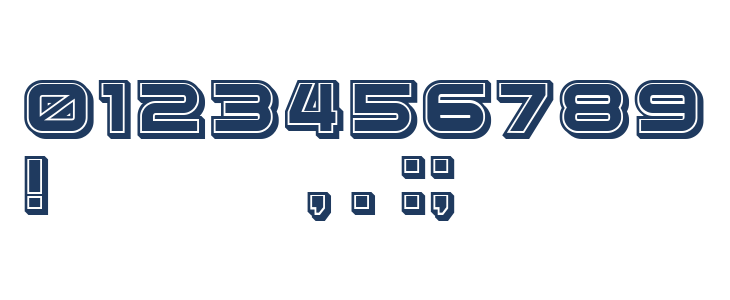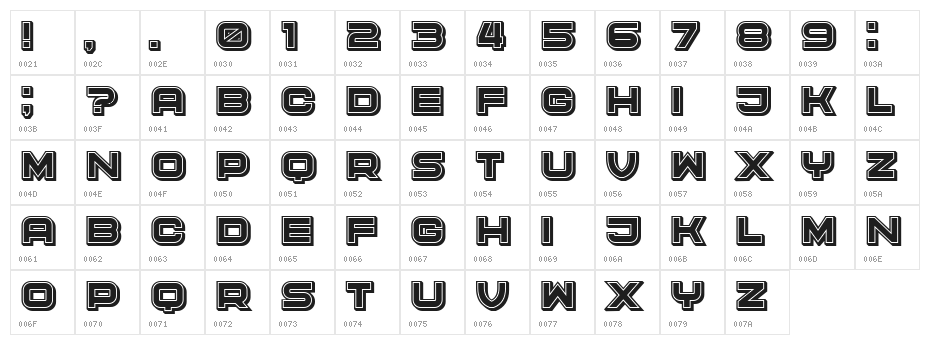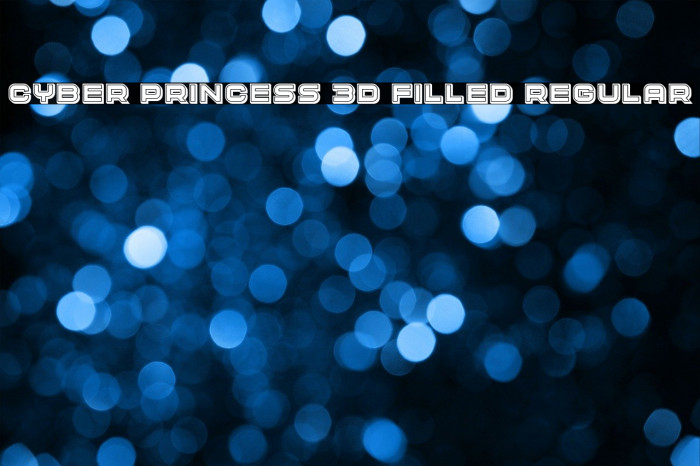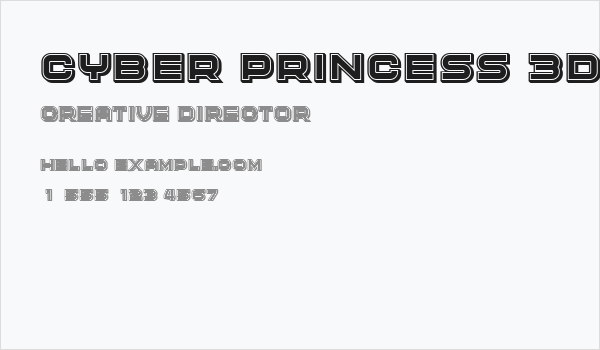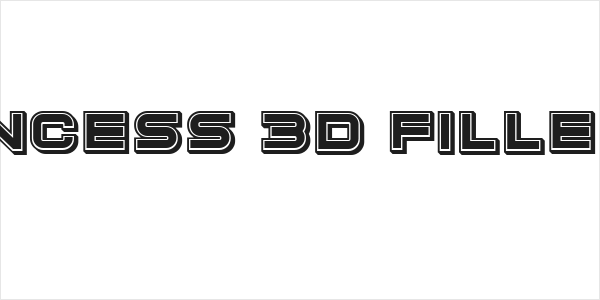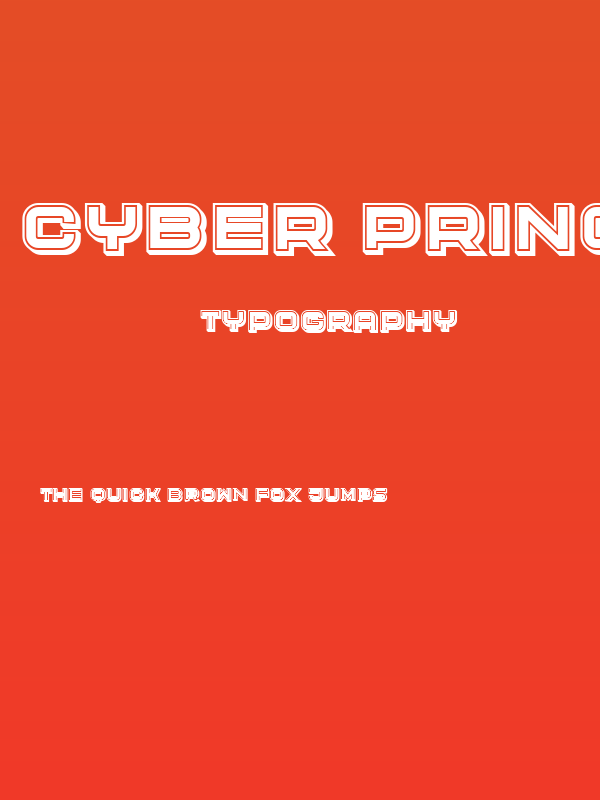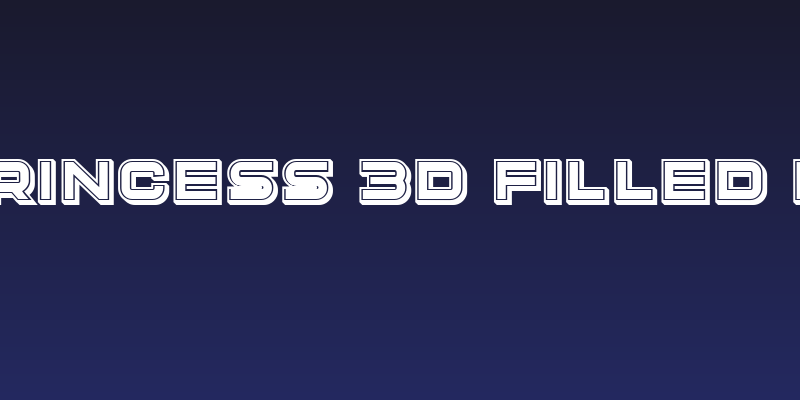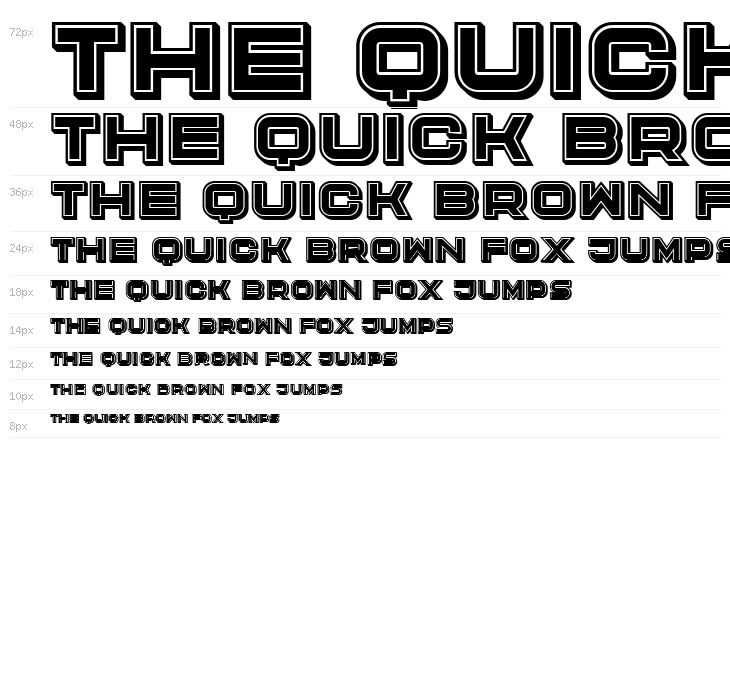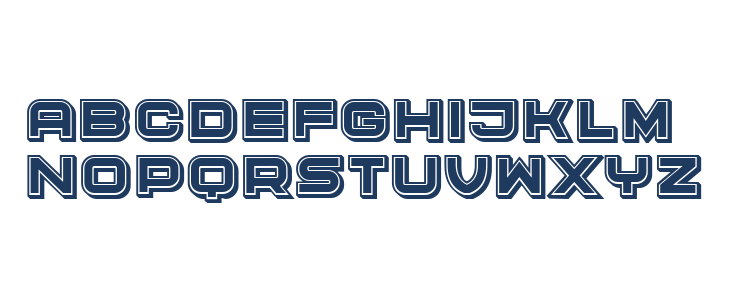
Cyber Princess 3D Filled Regular Font
Cyber Princess 3D Filled Regular Description
This font features a bold, futuristic design with a 3D filled effect that gives each character a distinct, eye-catching appearance. The uppercase letters are uniform in height and width, creating a cohesive look. The font's geometric shapes and sharp angles contribute to its modern and tech-inspired aesthetic. The numbers and special characters maintain the same stylistic elements, ensuring consistency across all glyphs. This font is ideal for projects that require a strong visual impact, such as technology-related branding or digital media.
| Proposed Projects | Ideal for technology branding, digital media, video game titles, and sci-fi themed designs. |